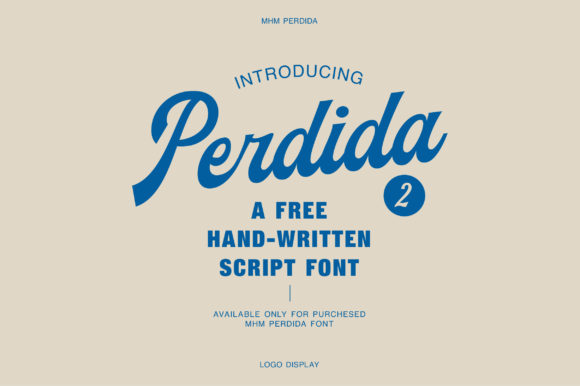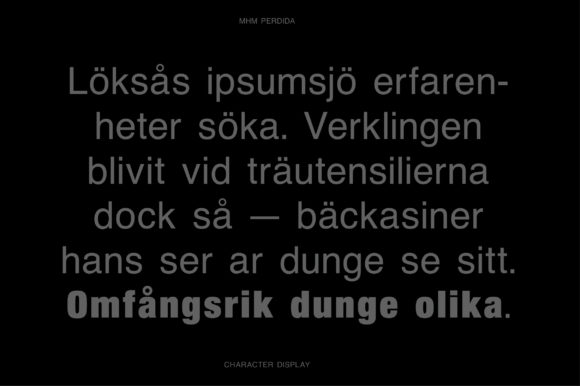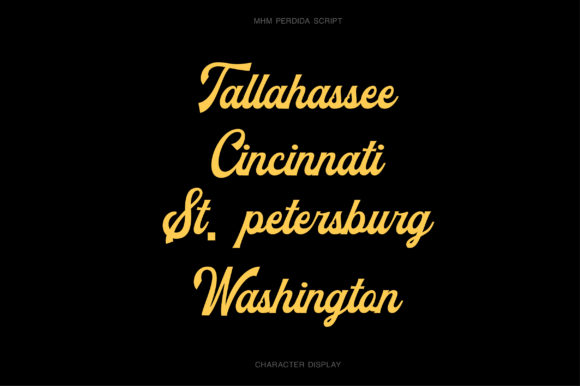
Perdida Font: Free Download Now
Introduction to Perdida Font
Perdida is a bold and assertive display font.
No matter the topic, this font will be an incredibly asset to your fonts’ library, as it has the potential to elevate any creation .
Key Features of Perdida Font
Why Choose Perdida Font?
Perdida Font offers exceptional quality and versatility, making it a valuable addition to your design toolkit. Whether you’re creating for personal projects or commercial use, Perdida Font delivers professional results.